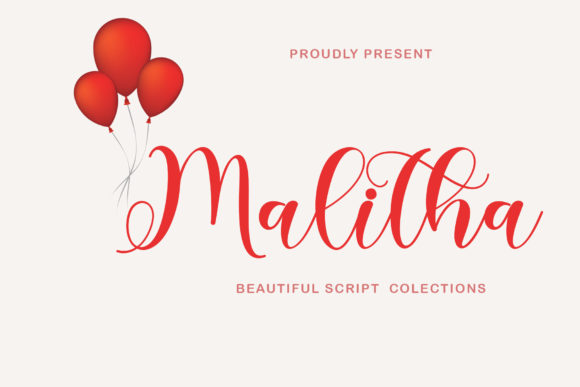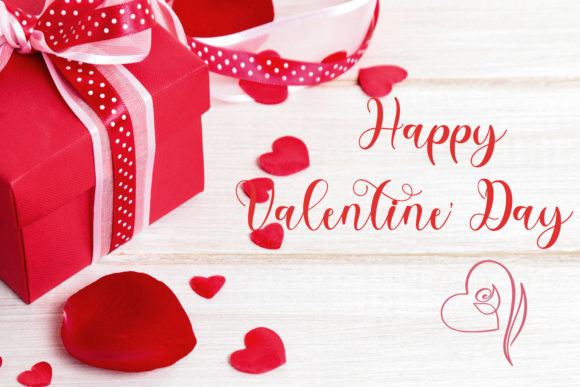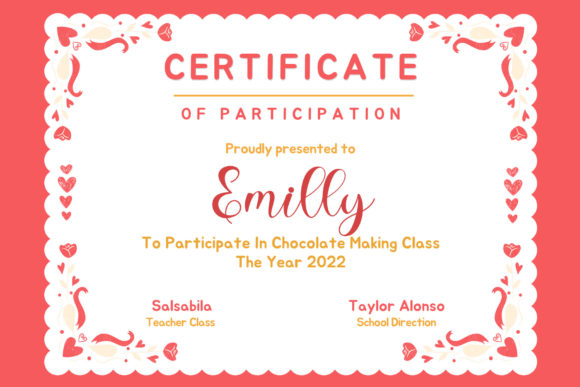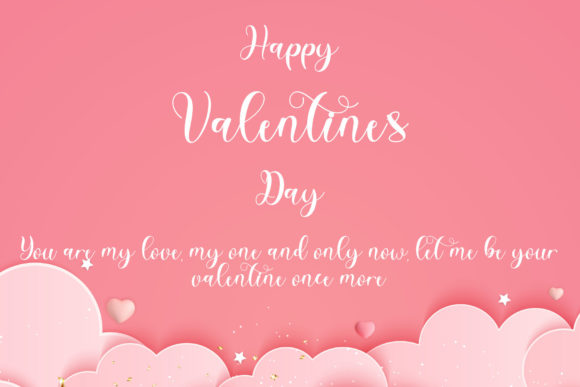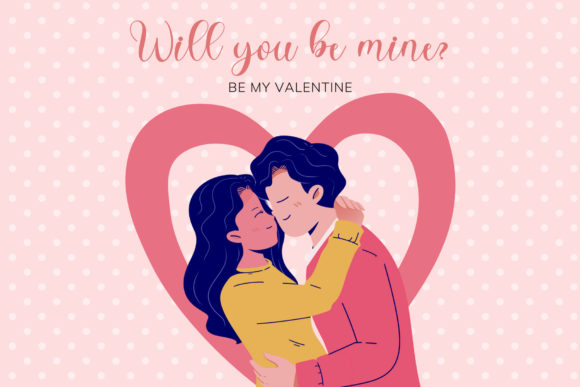
About Malitha Font
Malitha is a delicate, elegant and flowing handwritten font. It has beautiful and well balanced characters and as a result, it matches a wide pool of designs. This font is PUA encoded which means you can access all of the amazing glyphs and ligatures with ease!